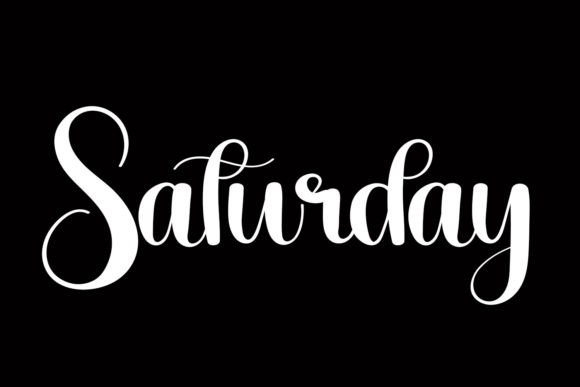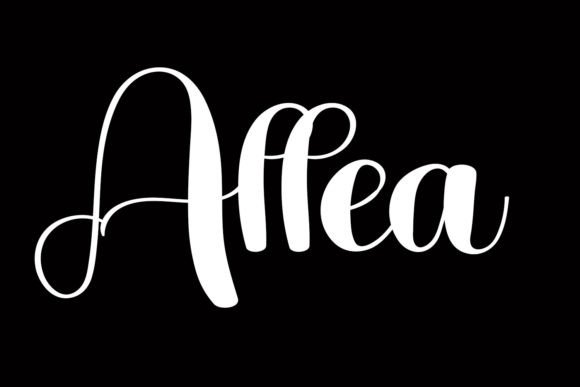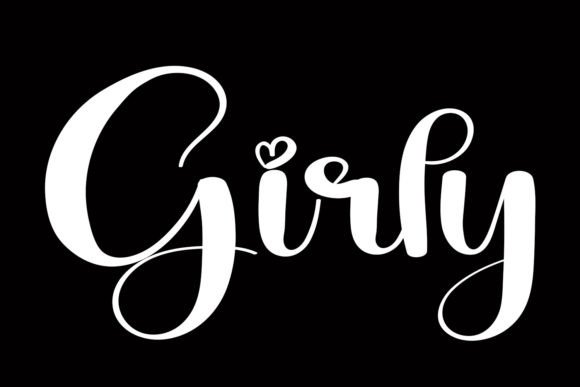
Introducing Birthday Font: The Perfect Addition to Your Design Collection
Are you a designer or crafter looking for a fresh and beautiful font to elevate your creative projects? Look no further than Birthday Font! This stunning font is perfect for a wide range of design purposes, from YouTube banners and cover logo mockups to wedding invitations, ID cards, flyers, crafts, and much more.
What Makes Birthday Font So Special?
Birthday Font is a unique and versatile font that is sure to impress. Its clean and elegant design makes it perfect for both personal and professional projects. Whether you’re creating a birthday invitation, a wedding announcement, or a social media graphic, this font is sure to add a touch of sophistication and style.
One of the best things about Birthday Font is its versatility. It can be used for a wide range of design purposes, including:
• YouTube banners and cover logo mockups
• Wedding invitations and announcements
• ID cards and badges
• Flyers and brochures
• Crafts and DIY projects
So, what makes Birthday Font so special? Here are just a few of its key features:
• Clean and elegant design: Birthday Font has a clean and elegant design that is perfect for both personal and professional projects.
• Versatile: This font can be used for a wide range of design purposes, from YouTube banners to wedding invitations.
• Easy to read: Birthday Font is easy to read, even at small sizes, making it perfect for use on a variety of design materials.
• High-quality: This font is of high-quality, ensuring that it will look great on any device or medium.
How to Use Birthday Font in Your Designs
Using Birthday Font in your designs is easy! Here are a few tips to get you started:
• Experiment with different sizes and colors: Try out different sizes and colors to see what works best for your design.
• Pair it with other fonts: Birthday Font pairs well with other fonts, so don’t be afraid to experiment with different combinations.
• Use it for headings and titles: This font is perfect for use on headings and titles, where its clean and elegant design can really shine.
Why Designers and Crafters Love Birthday Font
Designers and crafters love Birthday Font for a variety of reasons. Here are just a few:
• It’s fresh and unique: Birthday Font is a fresh and unique font that can help your designs stand out from the crowd.
• It’s versatile: This font can be used for a wide range of design purposes, making it a great addition to any design collection.
• It’s easy to use: Birthday Font is easy to use, even for those who are new to design.
Font Name Birthday Font
Author ABBAsalam
In conclusion, Birthday Font is a fresh and beautiful font that is perfect for designers and crafters looking to elevate their creative projects. Its clean and elegant design, versatility, and ease of use make it a great addition to any design collection. Whether you’re creating a YouTube banner, a wedding invitation, or a social media graphic, Birthday Font is sure to impress. So why wait? Download Birthday Font today and start creating stunning designs!